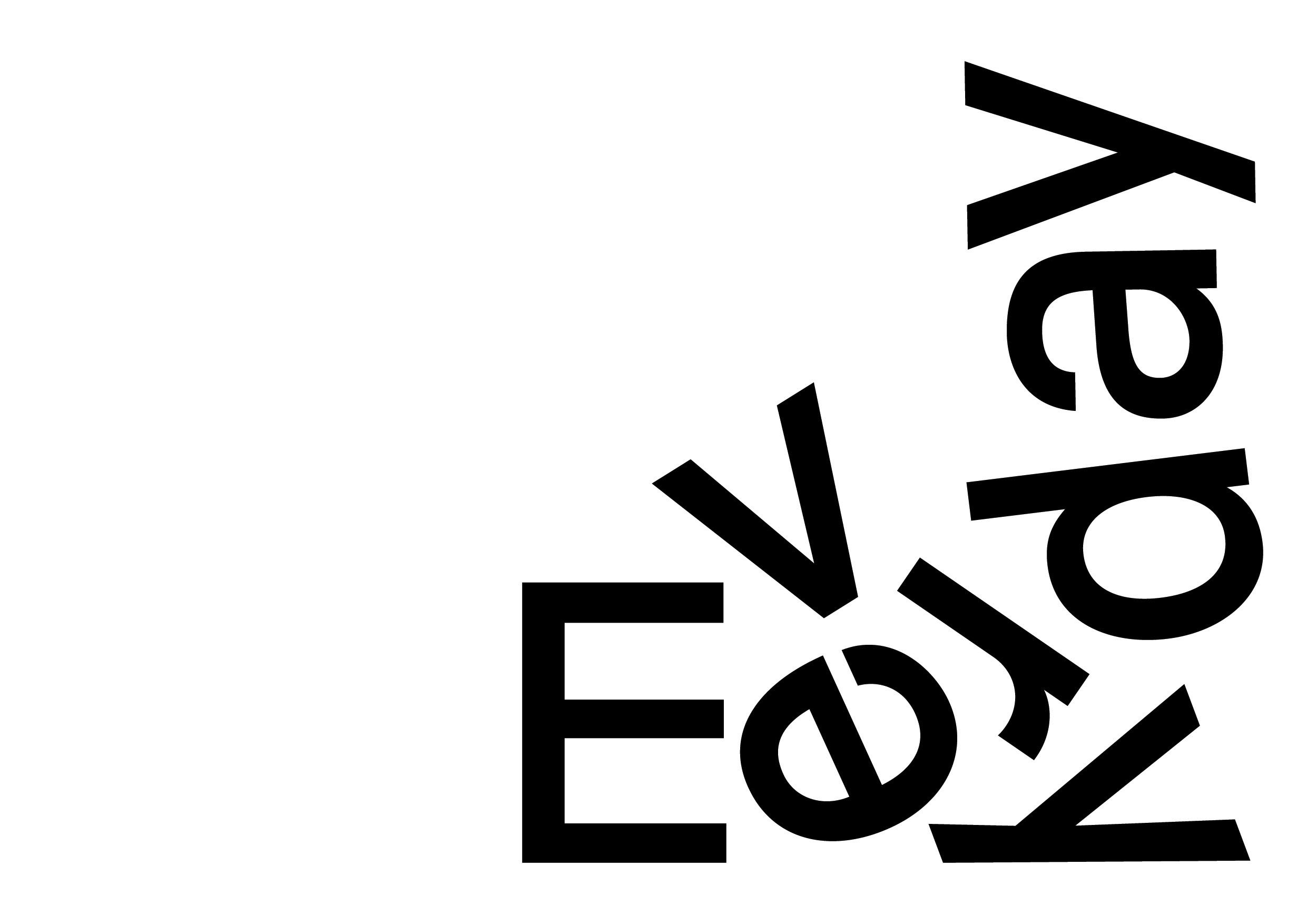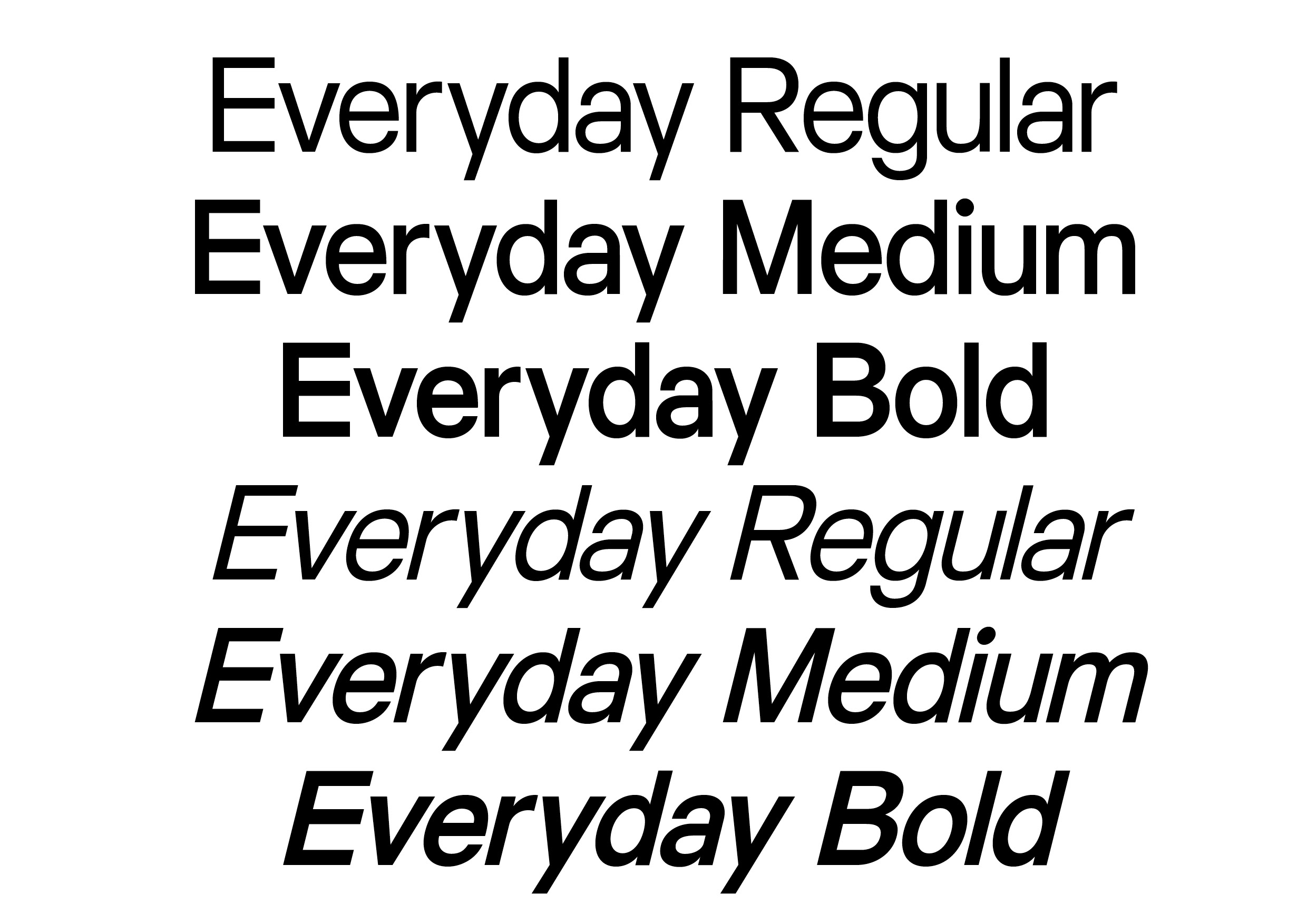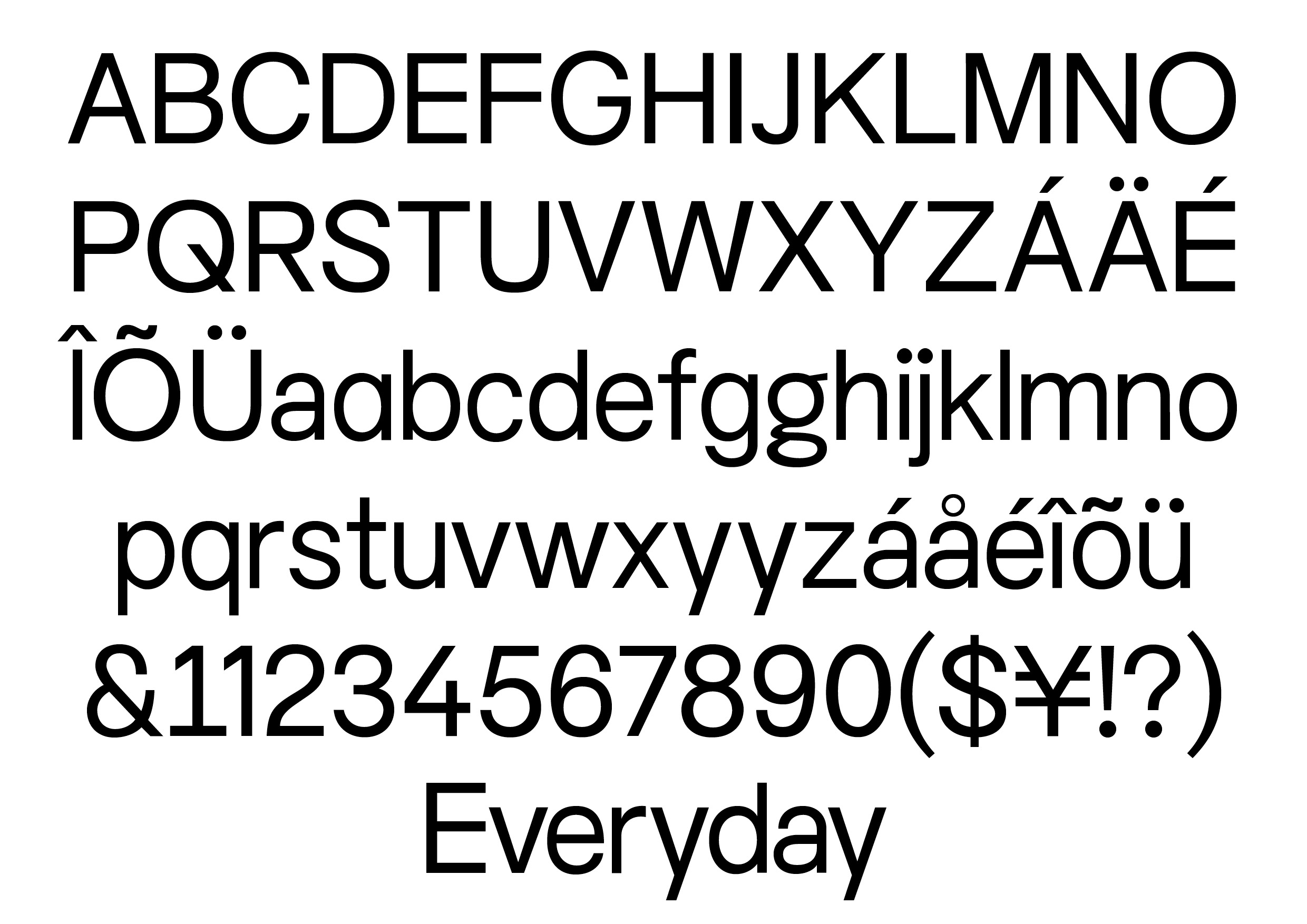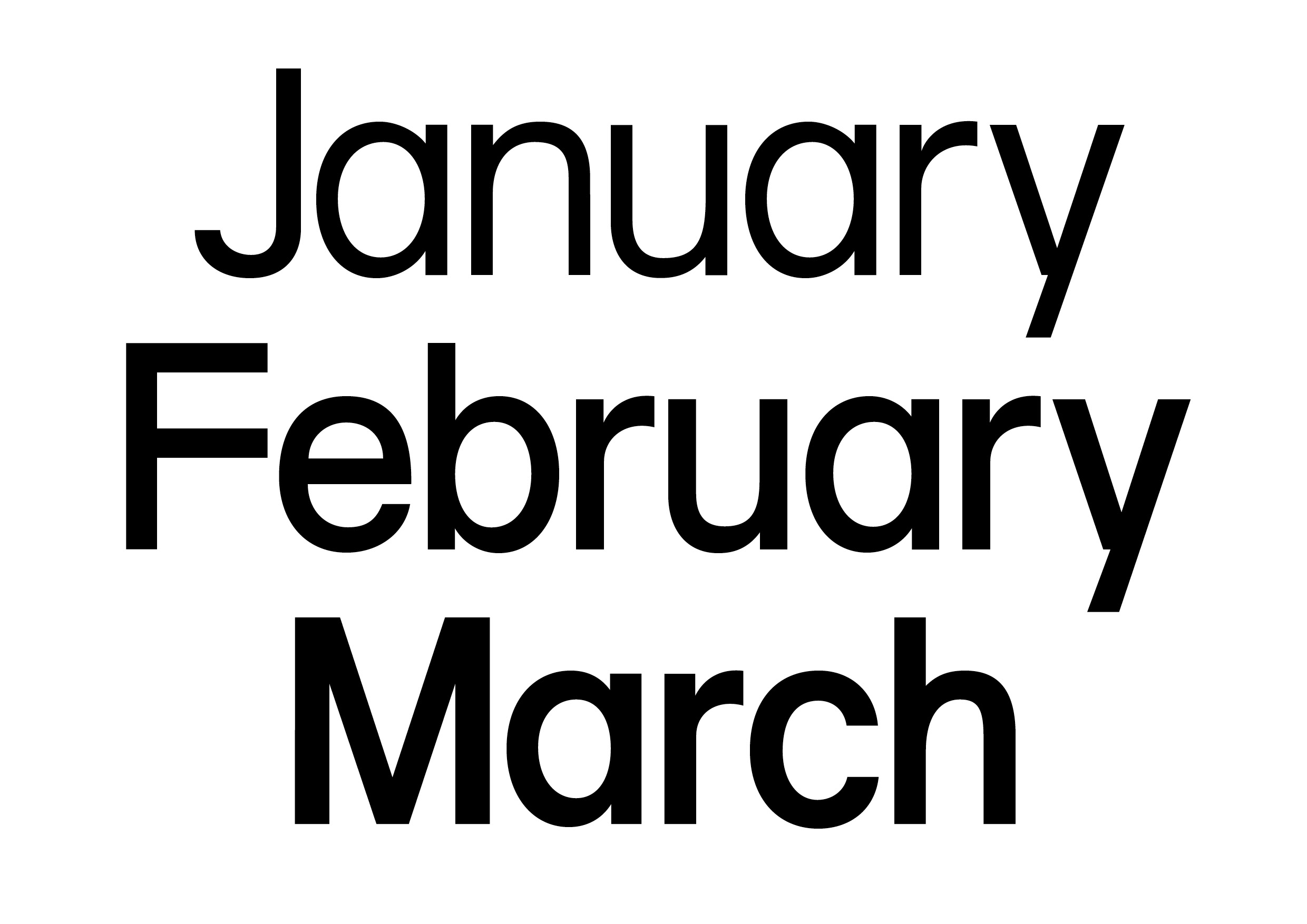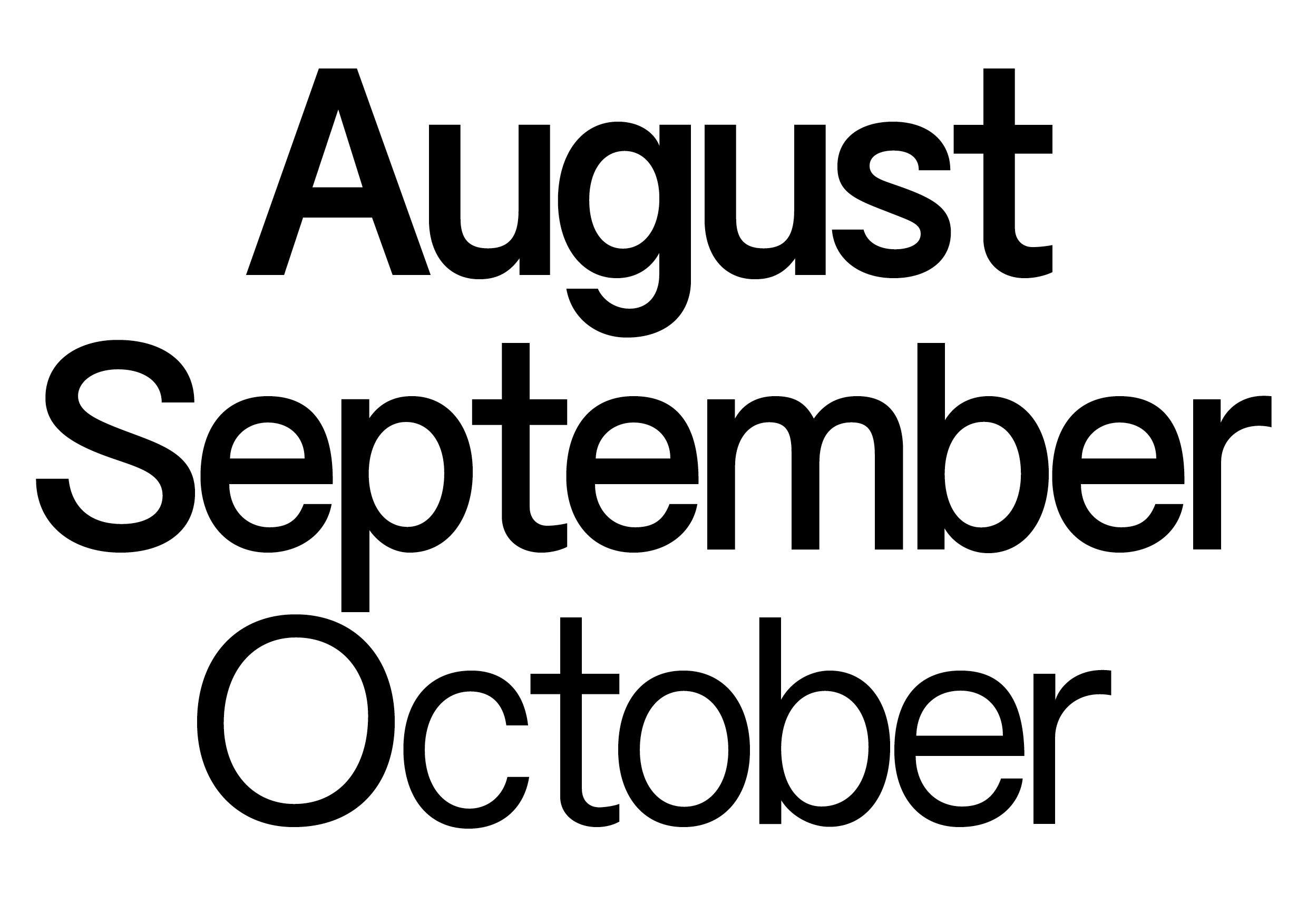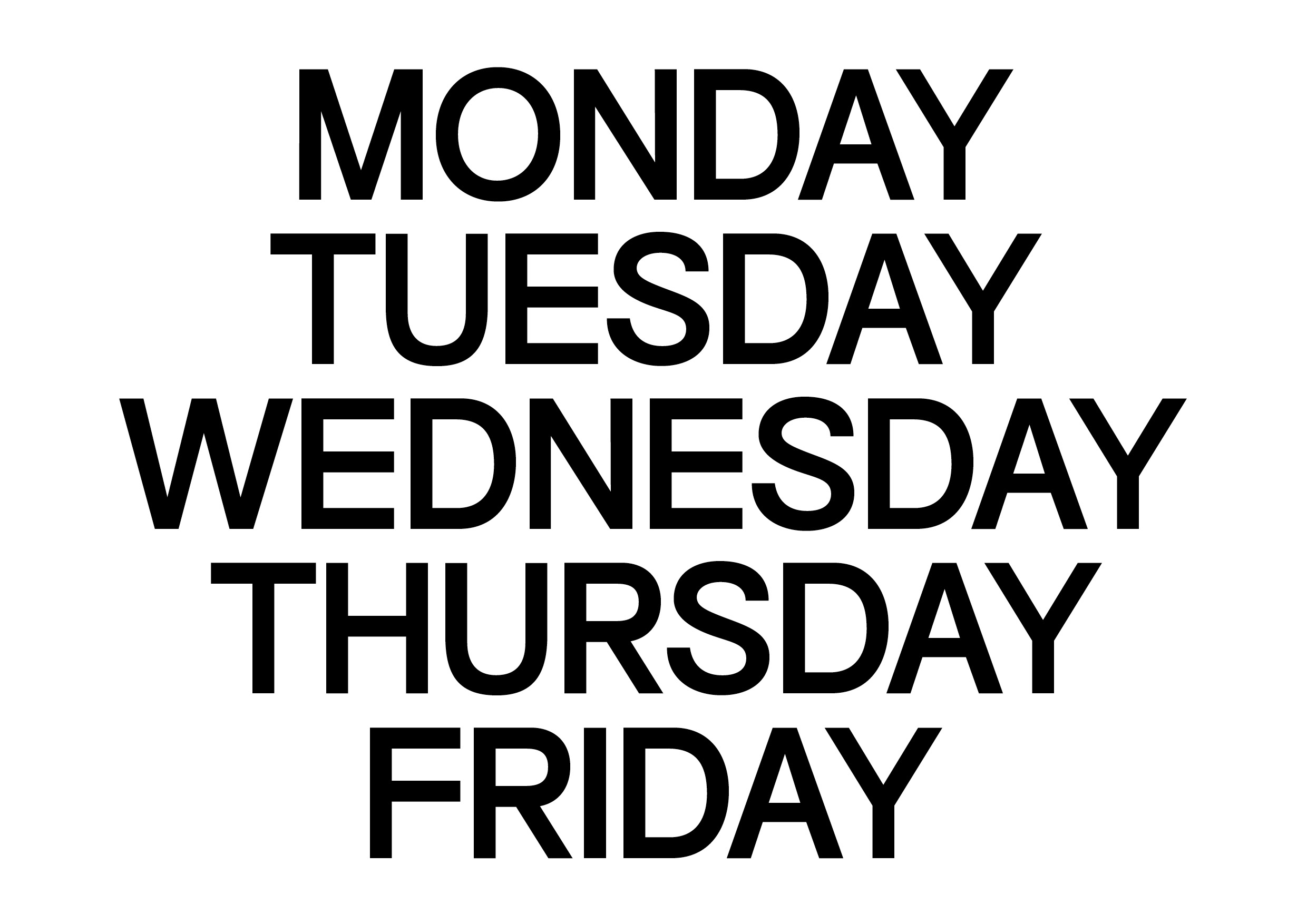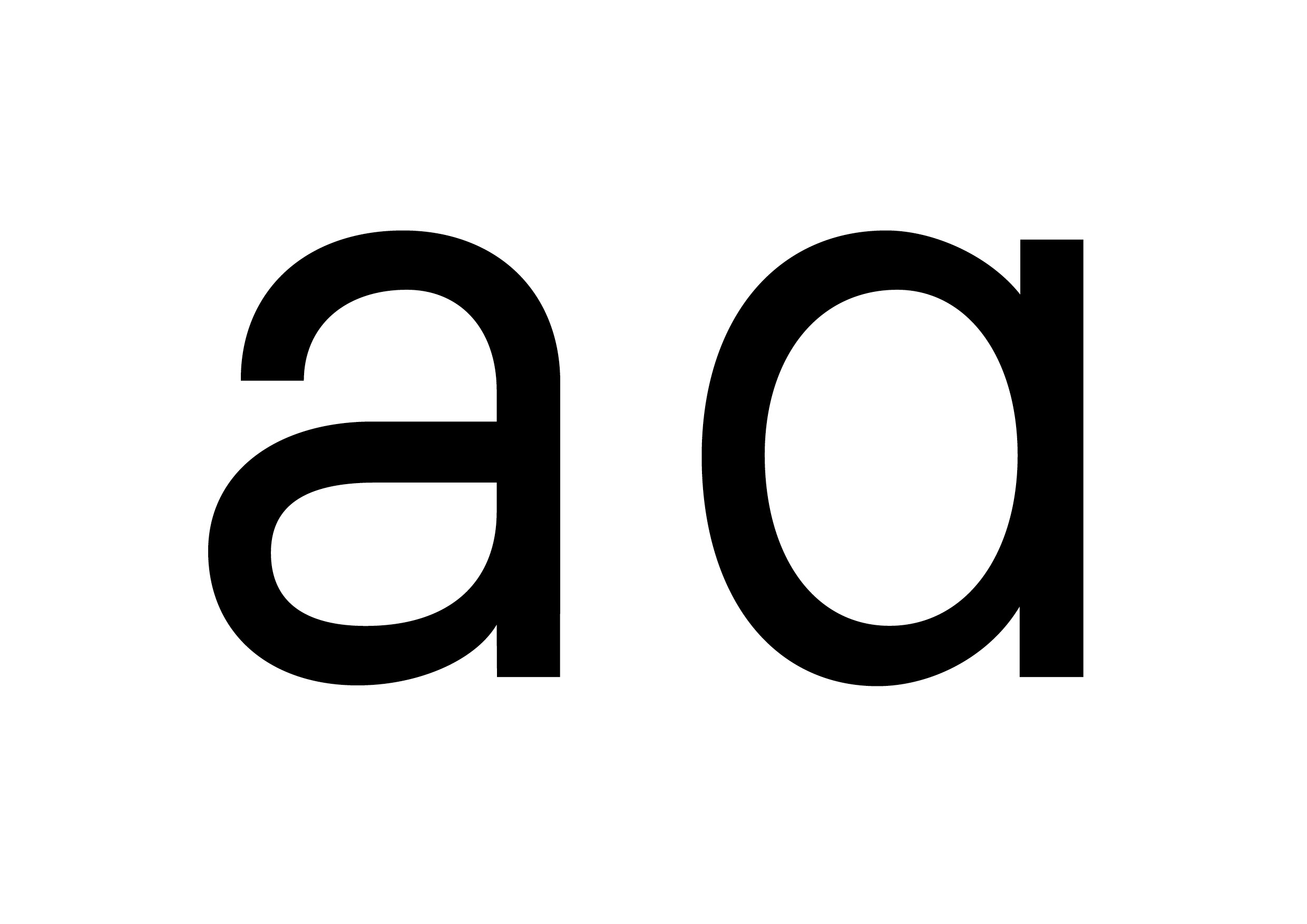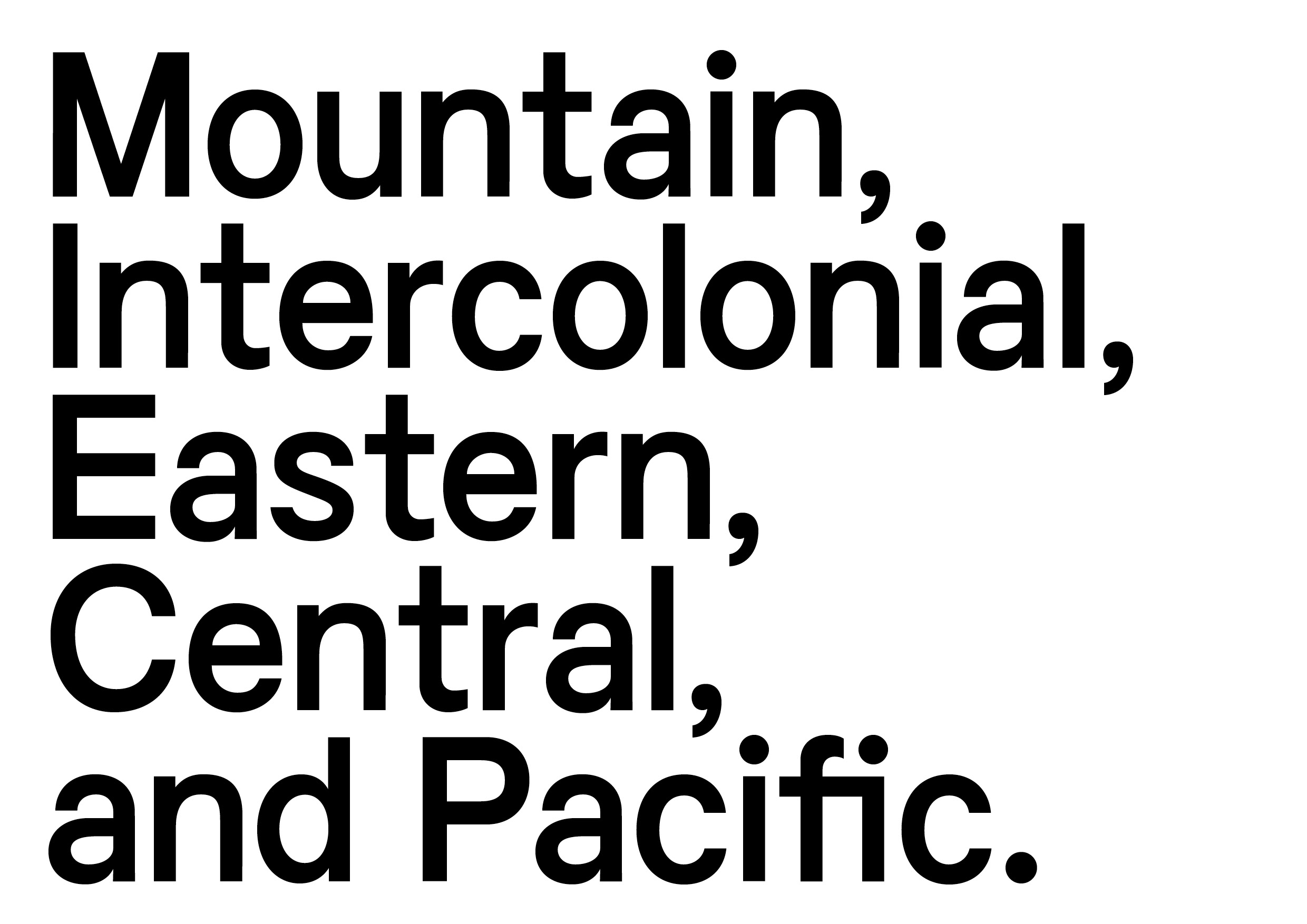
Everyday
We stop seeing the things we see every day. Everyday started by looking at them again. We studied twenty different typefaces and began stripping away their individual details to see what they had in common. We expected to find something neutral. What came out was warmer and stranger than that. Familiar shapes started to have a personality of their own. Everyday became a typeface about the beauty of things that don't normally ask for attention. It feels like something you've known for years even the first time you use it. Put it somewhere new and somehow it already feels at home.
Everyday Sans specimen
Everyday Sans in the world
Everyday Sans specimen
Everyday in the world